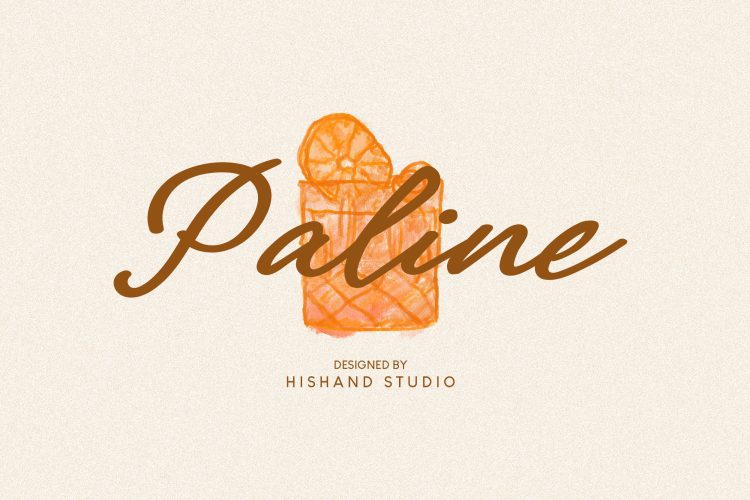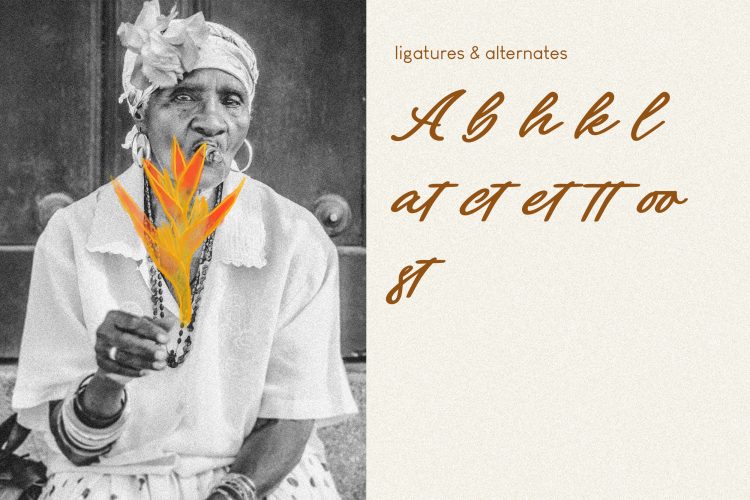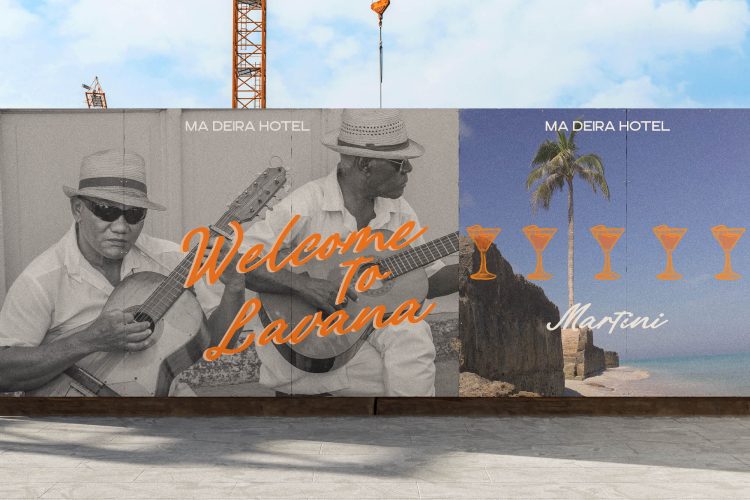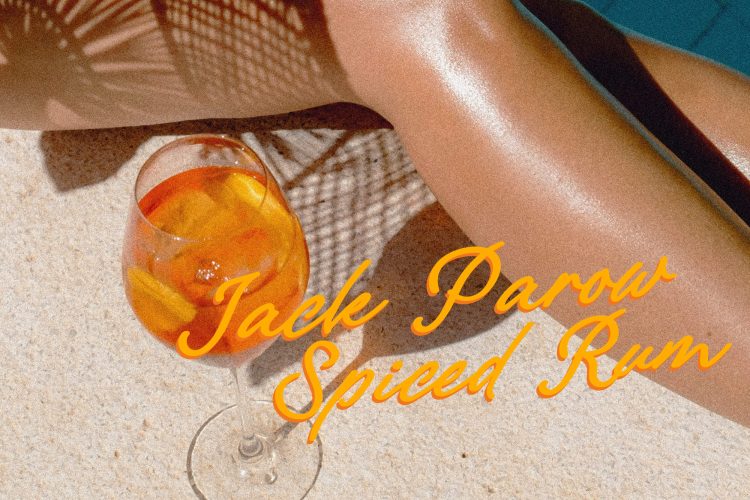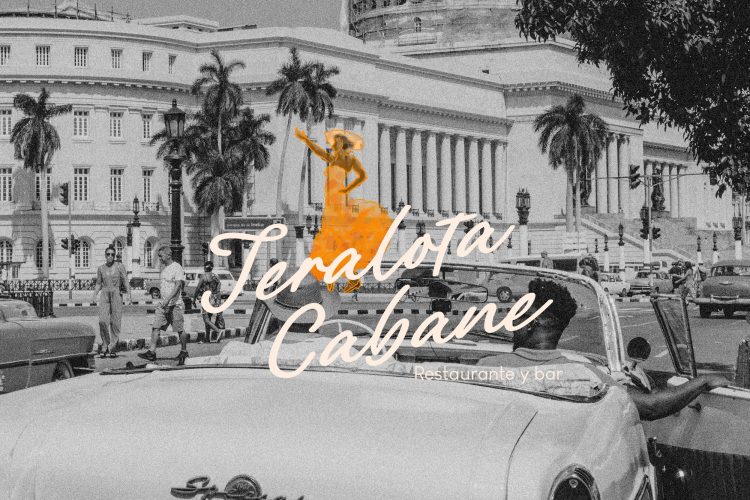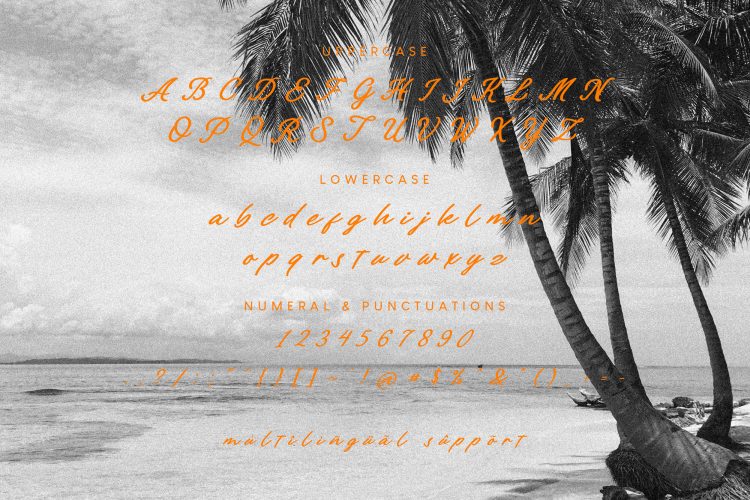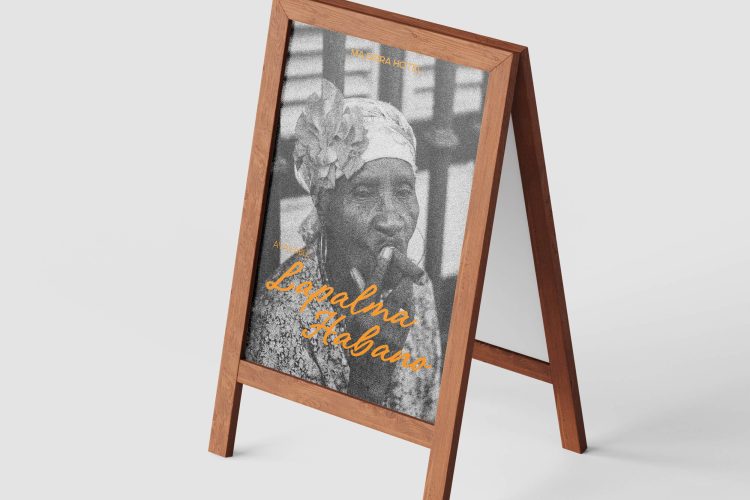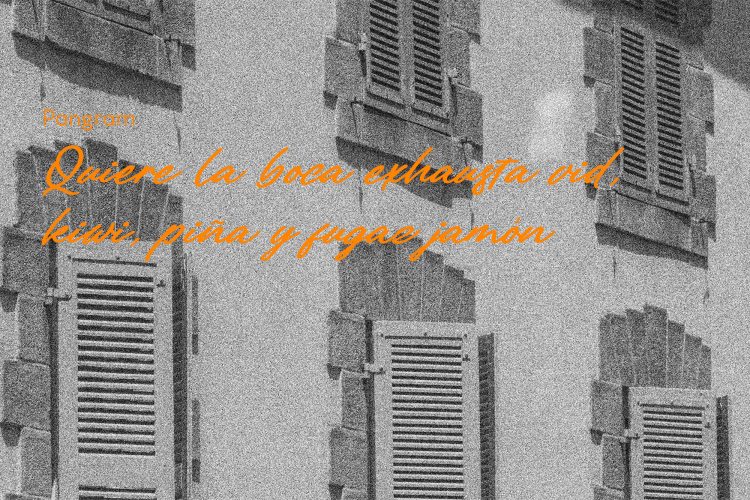
Paline Font
Paline is a graceful script font created by Hishand Studio, carefully designed to capture the beauty of natural handwriting while maintaining a refined, professional touch. Every curve, stroke, and connection has been thoughtfully crafted to achieve a harmonious balance between style and readability. Its smooth, flowing lines and well-proportioned letterforms give the font a rhythmic elegance, allowing it to feel both sophisticated and inviting. The delicate curves and expertly shaped connections between letters create a visual continuity that makes every word appear seamless and polished.
One of Paline’s strengths is its versatility. It has the unique ability to convey warmth, approachability, and friendliness without losing its sense of professionalism. This means it works equally well for personal projects and commercial branding. Whether you are designing a romantic wedding invitation, a modern logo, or a bold headline, Paline adapts effortlessly to suit the tone you want to achieve.
Each character in Paline has been individually drawn and refined to ensure consistency across the entire typeface. The result is a font that feels intentional and cohesive, no matter how it’s used. Its timeless script style is a nod to classic calligraphy traditions, yet it carries a modern sensibility that makes it relevant for contemporary design trends.
Paline font is ideal for projects where you want to add elegance and personality such as luxury product packaging, boutique branding, fashion editorials, or signature style logos. It shines in larger display sizes where its details can be appreciated, but it also maintains clarity in smaller applications.
Whether used as the focal point of your design or as a stylish accent, Paline font offers a refined charm that elevates your work. With its combination of beauty, functionality, and timeless appeal, this script font is a reliable choice for designers who want to make a lasting impression.
Complete with
• uppercase
• lowercase
• ligatures
• alternates
• multilingual support